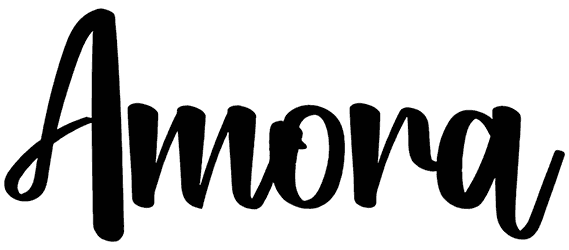
Amora Font
Success comes to those who never delay in choosing a suitable script font the such as the Amora, that is masterfully crafted with accurate kerning, and its characters dance along the baseline.
Due to its crooked letters, it can be your reliable assistant in the field of designing eye-catching animation posters, branding projects, magazines, book covers, or stickers. To be honest, this beach font can add a sense of personalization, fierceness, vitality, or dynamic to your work.